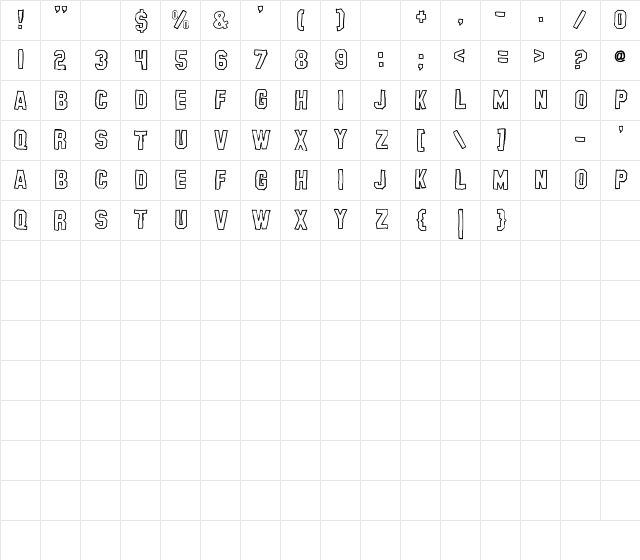
-banhart-hollow- Regular
Version: Version 1 - October 2008
Foundry: Eric Wiryanata
Designer: Eric Wiryanata
Design Context for -banhart-hollow-
-banhart-hollow- is a composed and adaptable typeface that performs quietly and consistently across a wide range of design contexts.